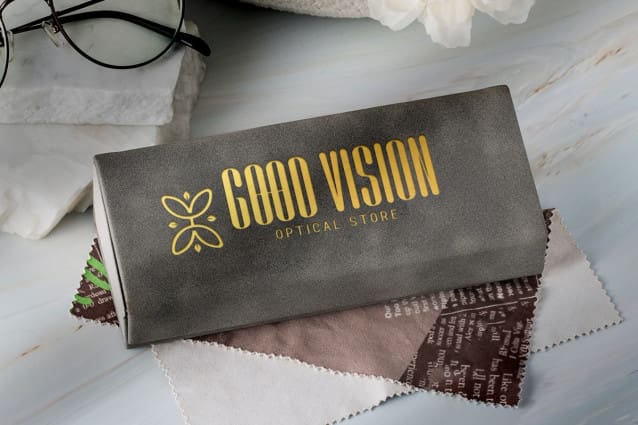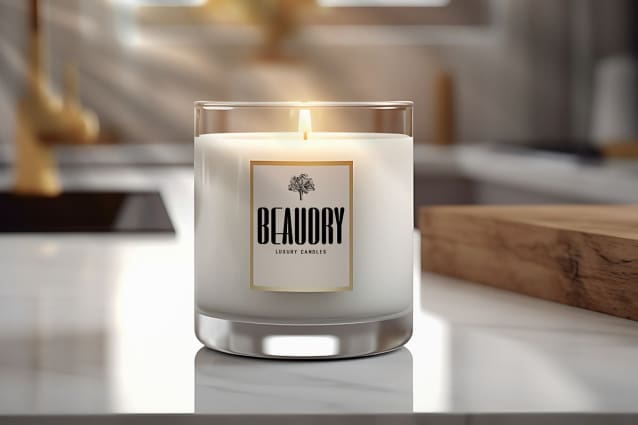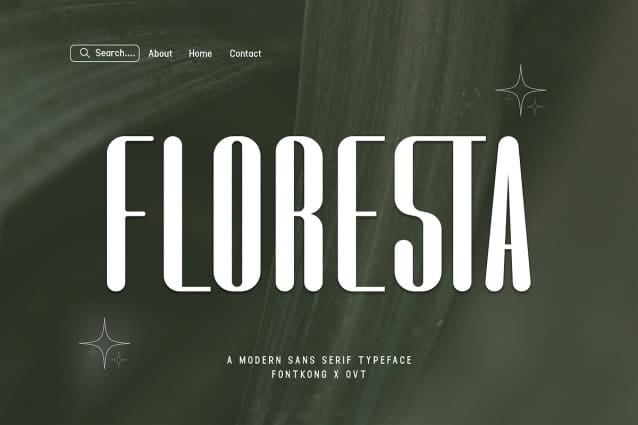
Floresta Sans Font
Floresta Sans Font a modern sans serif typeface that captures the essence of nature-inspired simplicity with contemporary elegance. With its clean lines and balanced proportions, Floresta offers versatility and style for a wide range of design projects.
Crafted with meticulous attention to detail, Floresta Sans strikes the perfect balance between minimalist aesthetics and functional design. Whether you’re creating editorial layouts, branding materials, or digital designs, this font commands attention and leaves a lasting impression.
Featuring multiple weights and styles, Floresta provides flexibility and adaptability for any design endeavor. Its extensive character set includes alternates, ligatures, and swashes, allowing you to customize your typography with ease and precision.
Experience the beauty of nature-inspired simplicity with the contemporary elegance of Floresta.